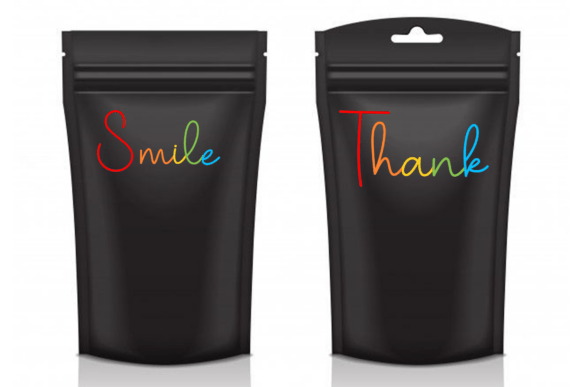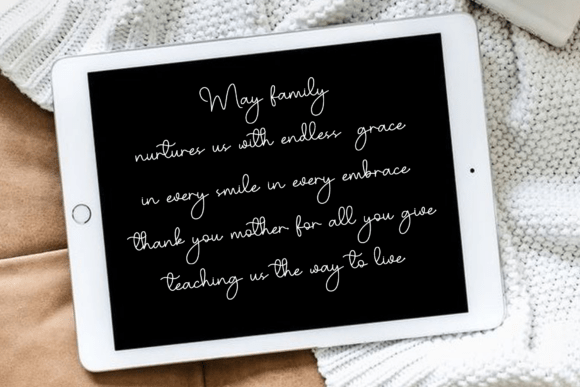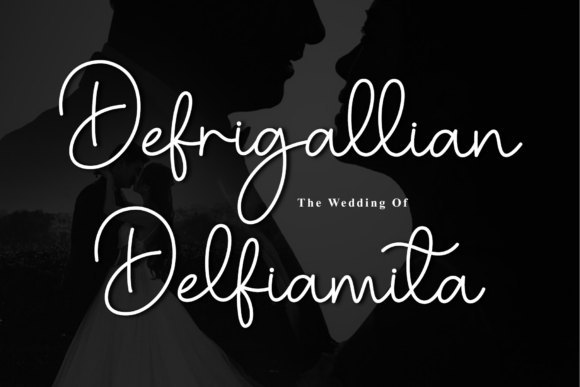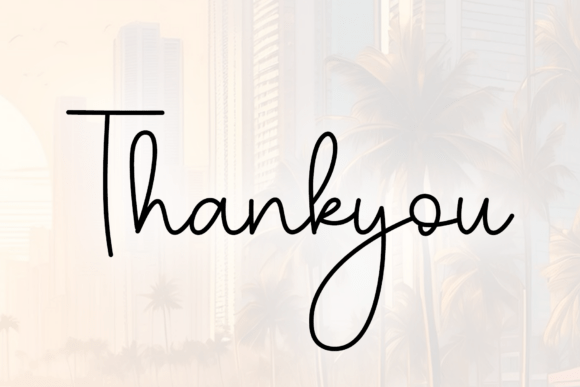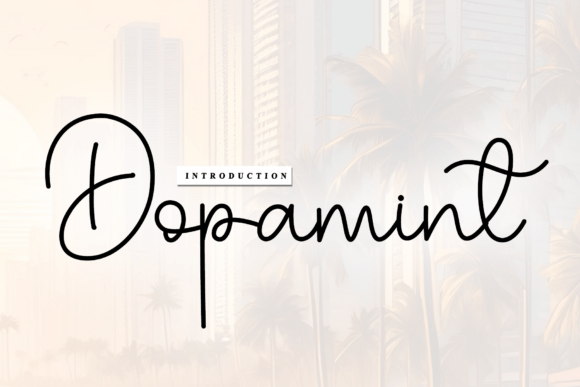
Dopamint Font: The Sweet and Elegant Choice for Your Design Projects
Are you looking for a font that can add a touch of sweetness and romance to your design projects? Look no further than Dopamint, a beautiful cursive handwritten font that is sure to impress. With its gentle and elegant strokes, Dopamint is the perfect choice for designers and crafters who want to create stunning visuals that exude joy and sophistication.
What is Dopamint Font?
Dopamint is a sweet and cursive handwritten font that is designed to bring a touch of whimsy and romance to your design projects. Its unique and flowing strokes make it perfect for creating beautiful and eye-catching designs that are sure to stand out. Whether you’re working on a branding project, a wedding invitation, or a marketing campaign, Dopamint is the perfect choice for adding a touch of elegance and sophistication.
Features of Dopamint Font
Dopamint font has several features that make it an ideal choice for designers and crafters. Some of its key features include:
• Sweet and Cursive Design: Dopamint has a sweet and cursive design that is perfect for creating beautiful and eye-catching designs.
• Gentle and Elegant Strokes: The font has gentle and elegant strokes that make it perfect for adding a touch of romance and sophistication to your designs.
• Versatile: Dopamint is a versatile font that can be used on a variety of design projects, including branding, logos, wedding invitations, greeting cards, and more.
• Elegant but Casual: The font has an elegant but casual feel that makes it perfect for creating designs that are both sophisticated and approachable.
Use Cases for Dopamint Font
Dopamint font is perfect for a wide range of design projects, including:
• Branding: Use Dopamint to create beautiful and eye-catching brand logos and marketing materials.
• Wedding Invitations: Add a touch of romance and elegance to your wedding invitations with Dopamint.
• Greeting Cards: Use Dopamint to create beautiful and heartfelt greeting cards for special occasions.
• Fashion and Lookbook: Dopamint is perfect for creating stylish and sophisticated fashion designs and lookbooks.
• Marketing Promotion: Use Dopamint to create eye-catching marketing materials, such as brochures, flyers, and posters.
Why Choose Dopamint Font?
There are many reasons why Dopamint font is an excellent choice for designers and crafters. Here are just a few:
• Unique Design: Dopamint has a unique and beautiful design that is sure to stand out.
• Elegant and Sophisticated: The font has an elegant and sophisticated feel that makes it perfect for creating high-end designs.
• Versatile: Dopamint can be used on a wide range of design projects, making it a great addition to any designer’s toolkit.
• Easy to Read: The font is easy to read, making it perfect for creating designs that need to communicate a message.
In conclusion, Dopamint font is a beautiful and elegant cursive handwritten font that is perfect for designers and crafters who want to create stunning visuals. With its sweet and gentle strokes, Dopamint is sure to add a touch of joy and romance to any design project. Its versatility, elegance, and sophistication make it an excellent choice for a wide range of design projects, from branding and marketing to wedding invitations and greeting cards. So why not give Dopamint a try and see how it can elevate your designs to the next level?